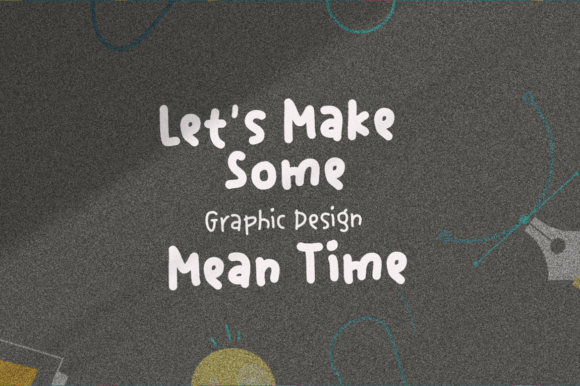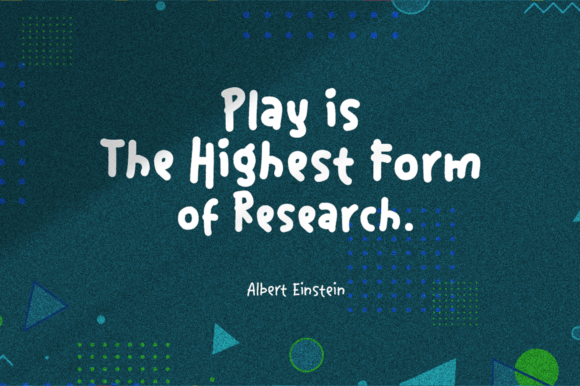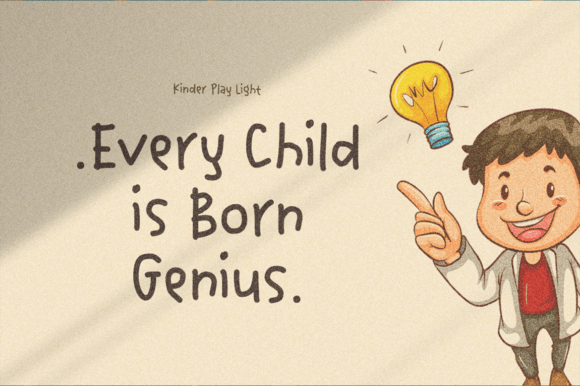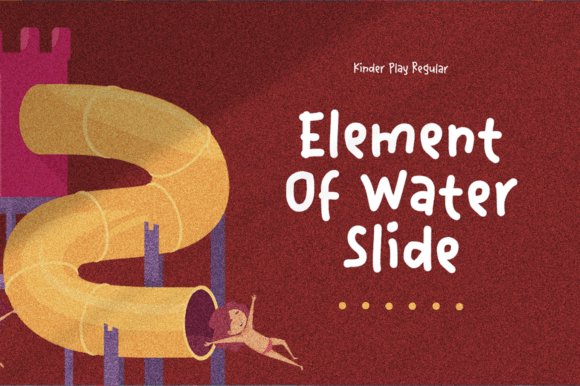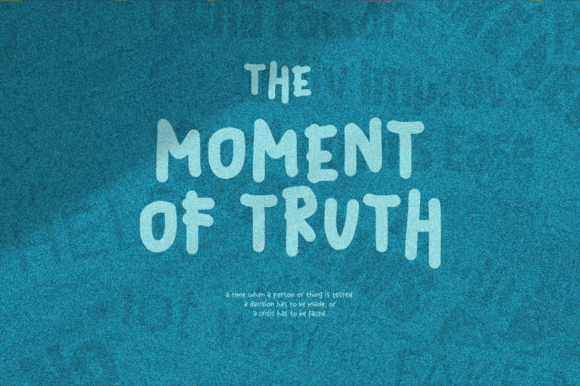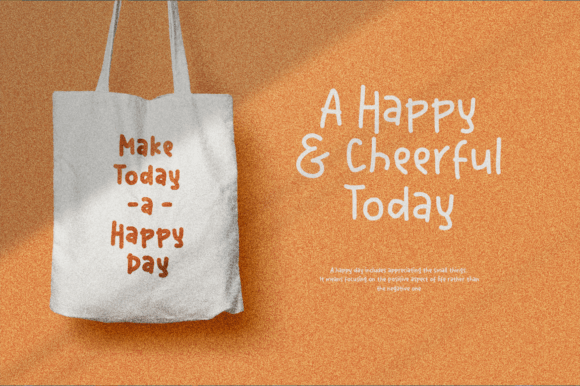
Introduction to Kinder Play Font
Imbue your designs with a delightful charm with Kinder Play—a whimsically hand-drawn font.
This carefree typeface offers trio of versatile weights, giving your creative projects much-needed flexibility From endearing quotes to personalized notes, and lively aesthetics, this font fosters a genuine, warm ambience.
Key Features of Kinder Play Font